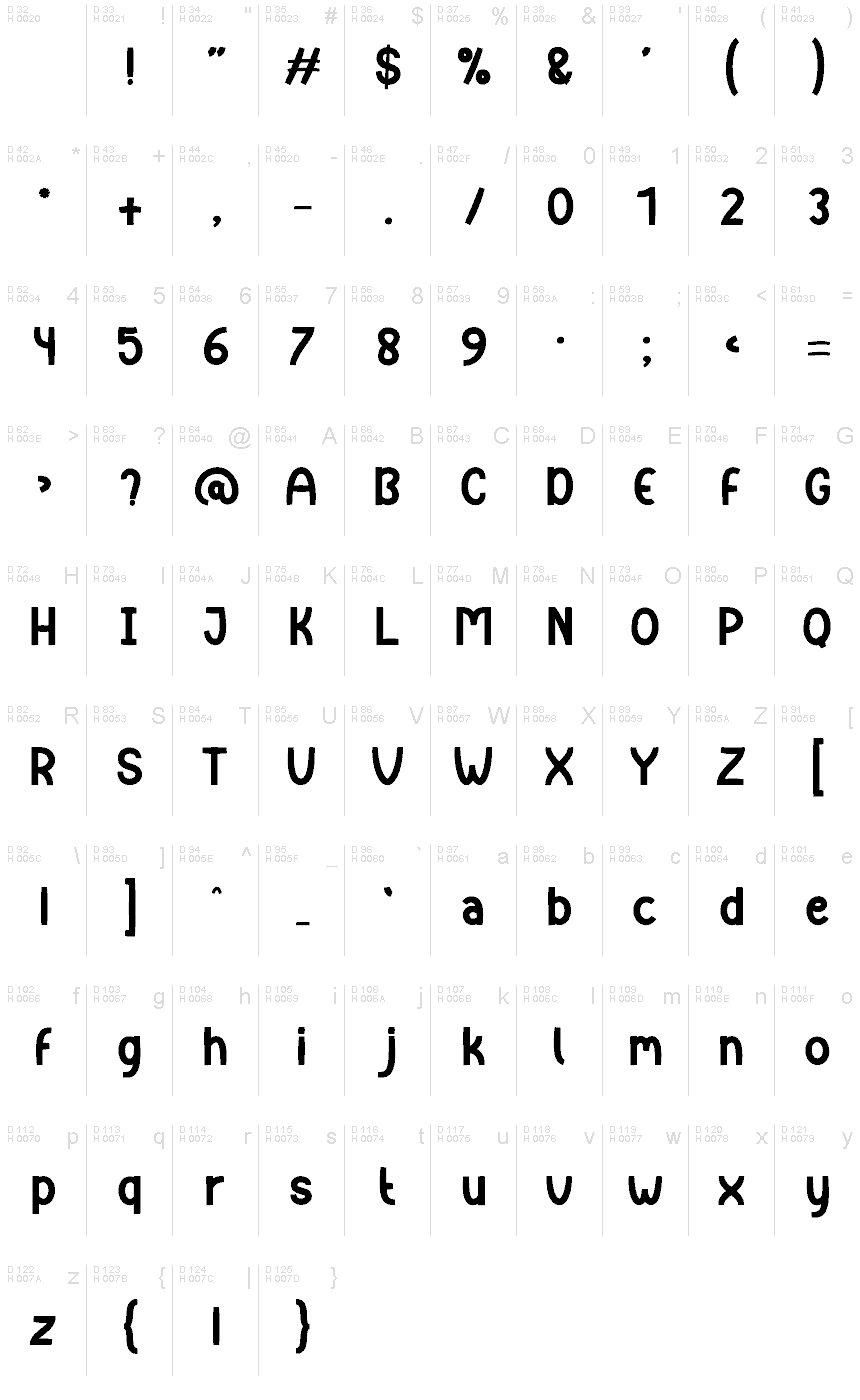
Christmas Firewood
Christmas Firewood font is a bubbly, whimsical font designed by Scratchones. The display typeface has friendly letterforms that feature a modern-retro decorative style that is simply charming. A casual, engaging touch is given to all audiences thanks to its legibility, which is achieved through its clean characters.